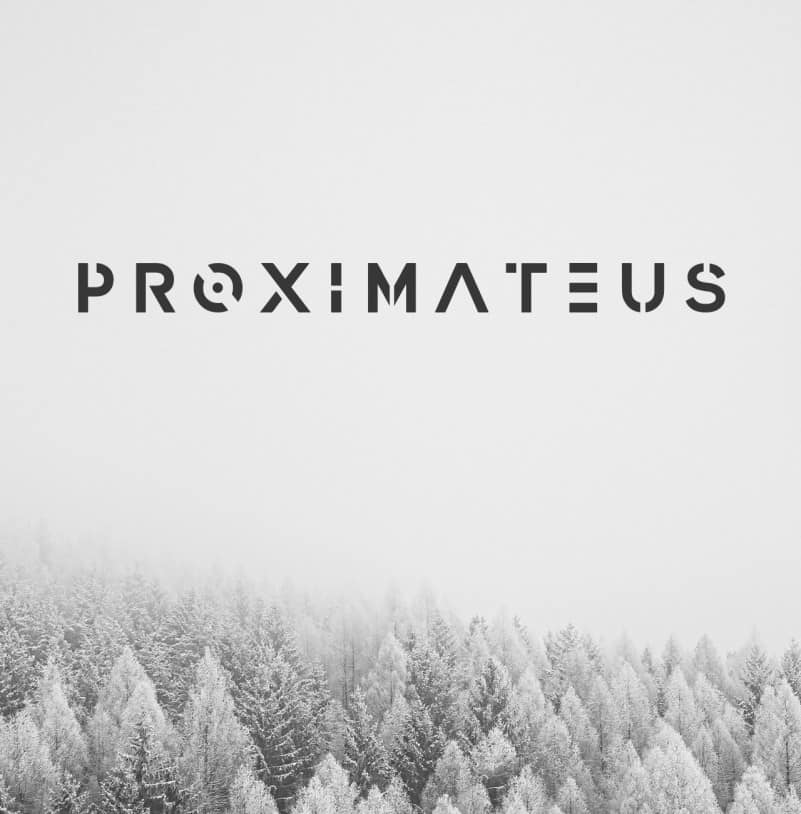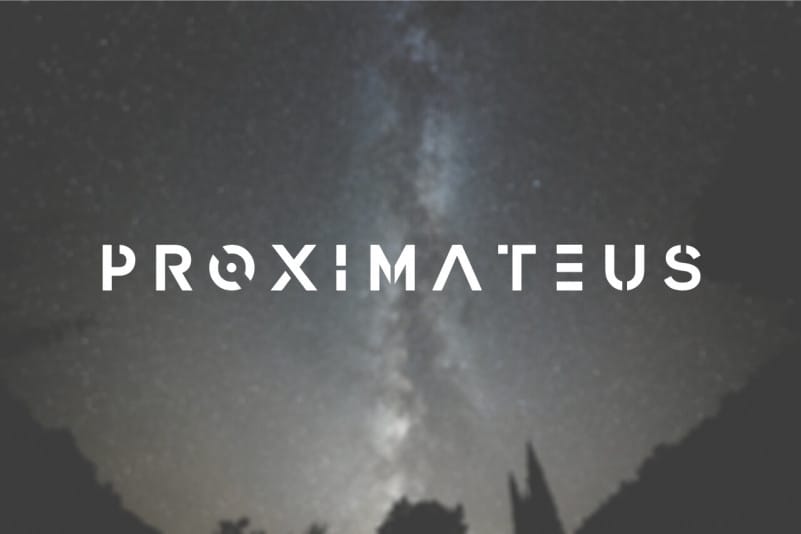
Proximateus Display Font is a very versatile font that works great in large and small sizes. Proximateus Display Font is perfect for branding projects, home-ware designs, product packaging, magazine headers – or simply as a stylish text overlay to any background image.